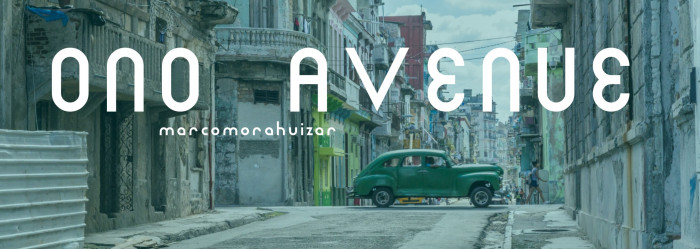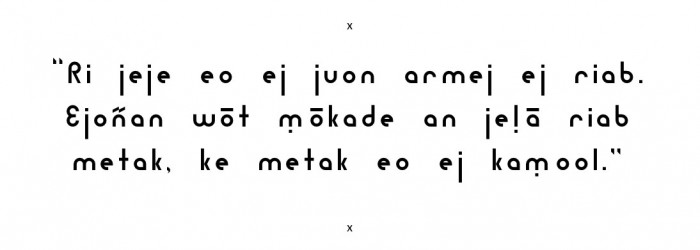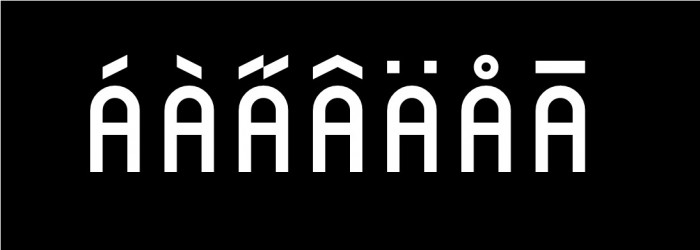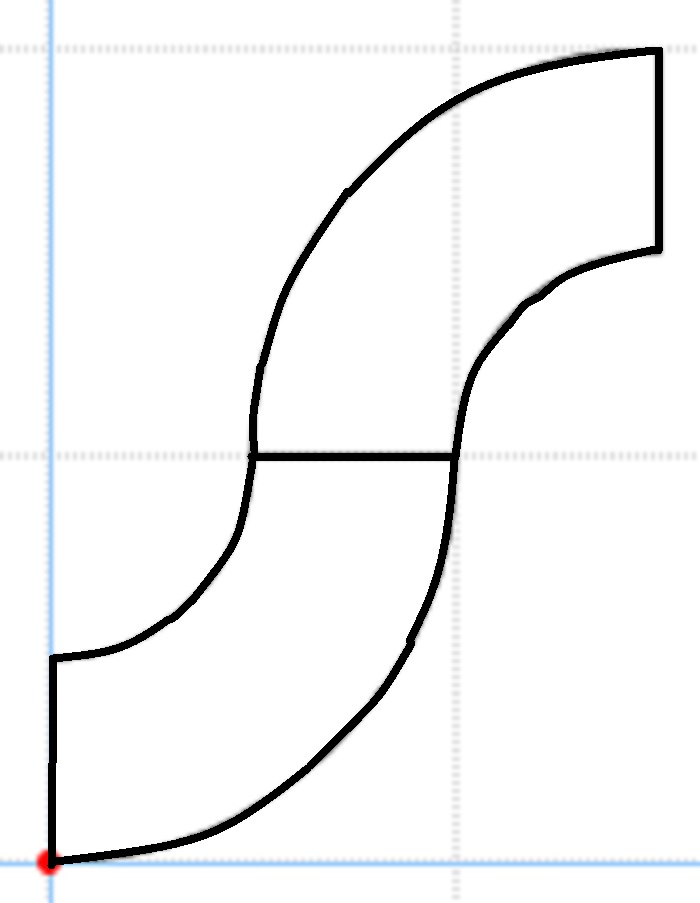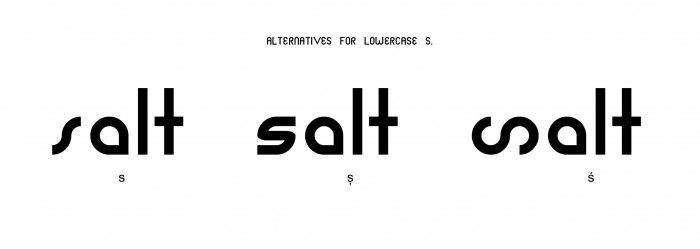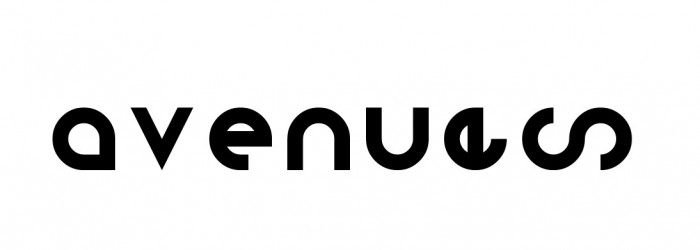
“Ri jeje eo ej juon armej ej riab. Ejoñan wōt ṃōkade an jeḷā riab metak, ke metak eo ej kaṃool.”
A with accent marks.
I think your lowercase s appears sideways...
@Se7enty-Se7en, yeah! I had to make it that way to keep the right line thickness
Will this work?
I thought about that too. Do you think it's better than a sideways s?
I made an altenative for lowercase s at ș.
Alternatives for the lowercase s.
s ș ś
I like the sideways. I also like the first 's'. You might consider making the s sideways and making the e sideways at the same time and see how that looks.
avenuǝś
I made a sideways e at ǝ.
something's wrong with the m and m.
when I say m and n, I mean uppercase m and n